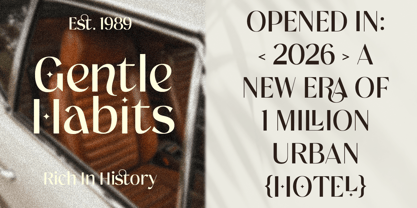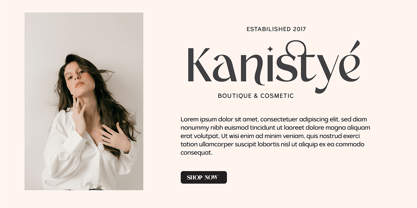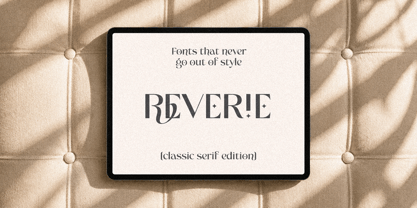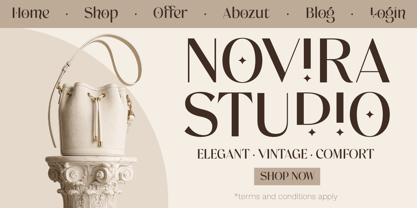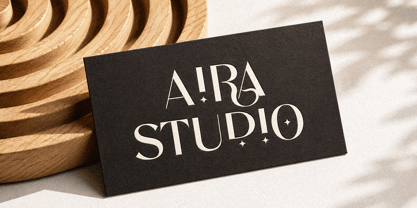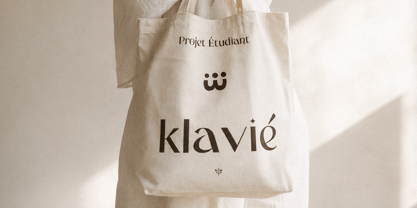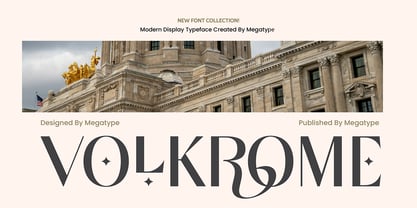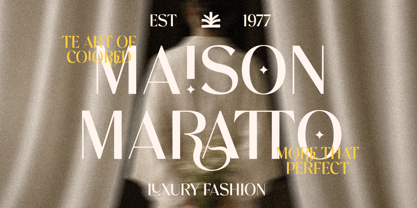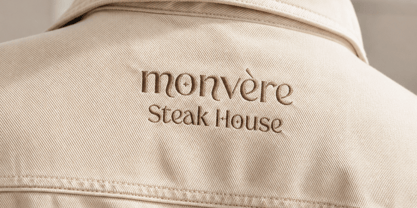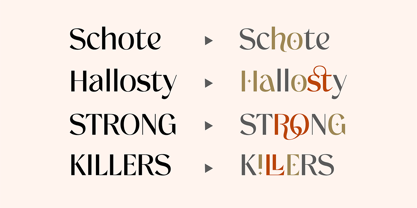
Volkrome
by Mega Type
The Volkrome Font Family was designed by M Akmal and published by Mega Type. Volkrome contains 2 styles and family package options. More about this family
Volkrome is a sophisticated modern display typeface that blends timeless elegance with contemporary refinement. Its high-contrast letterforms, graceful curves, and distinctive decorative details create a luxurious visual presence that immediately captures attention. The font showcases a harmonious balance between sharp geometric structures and flowing ornamental elements, making it both artistic and highly memorable. Unique glyph features, including stylish ligatures and decorative accents, give Volkrome a premium and fashion-forward character.
Designed to stand out in large-scale applications, Volkrome delivers exceptional visual impact while maintaining a polished and professional appearance. Its refined aesthetic evokes luxury, exclusivity, and creativity, making it an excellent choice for designers seeking a typeface that communicates sophistication and modern elegance. Whether used sparingly as a statement headline or as a central branding element, Volkrome brings a distinctive and upscale personality to any design.
Volkrome is ideal for luxury branding, fashion editorials, premium packaging, cosmetic and beauty products, high-end logos, wedding stationery, magazine covers, jewelry branding, boutique businesses, hotel branding, lifestyle campaigns, social media graphics, event invitations, book covers, product labels, and elegant website headers. Its decorative and stylish appearance makes it particularly effective for projects that require a sense of prestige, exclusivity, creativity, and visual sophistication.
Designers: M Akmal
Foundry: Mega Type